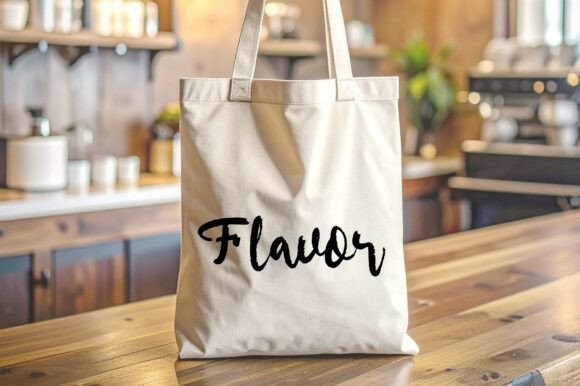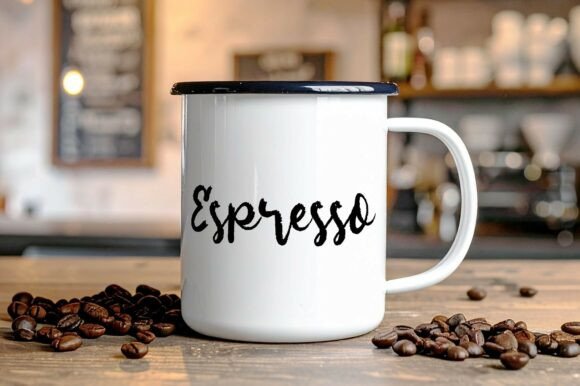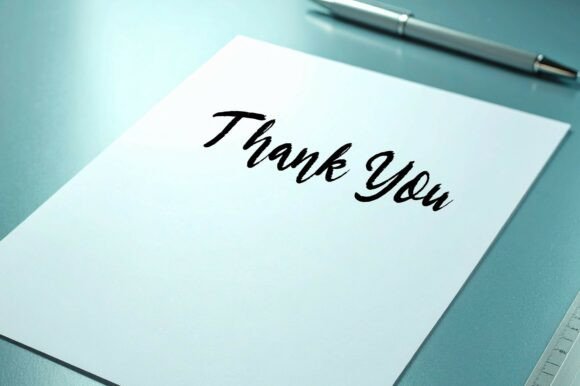
The Perfect Blend of Emotion and Aesthetics
As you sit down to craft a heartfelt message for a loved one, you search for the perfect words to convey your feelings. But sometimes, it’s not just the words that matter – it’s the way you express them. That’s where the magic of typography comes in. Imagine your words dancing across the page in a beautiful, whimsical script, speaking directly to the heart of your recipient.
Enter the “Be With You Font”, a charming script font that embodies warmth and affection. This font is designed to transport your message from the digital realm to a tangible, emotional experience. With its unique blend of modern aesthetics and ageless allure, “Be With You Font” is a valuable tool for designers looking to add depth and authenticity to their work.
Whether you’re creating a brand identity, packaging design, or social media campaign, “Be With You Font” is the perfect companion to help you craft a story that resonates with your audience.
Be with You Font Key Features
- Font Family: Be with You, a beautiful and elegant script font designed to convey a sense of love and romance.
- Unique Characteristics: The Be with You font features a unique, flowing script style with subtle flourishes and connections between letters, giving it a romantic and elegant feel.
- Font Weight: The font comes in multiple weights, including Light, Regular, Bold, and Extra Bold, allowing users to choose the perfect weight for their design needs.
Designer Review: Be with You Font
Overall, I’d say the Be with You Font is a lovely addition to any digital designer’s toolkit. ✨ It’s modern, sleek, and feels very much at home in contemporary designs. The font’s versatility shines through in its ability to adapt to various design styles, making it a solid choice for projects ranging from minimalistic web pages to creative social media graphics.
Some of the things I appreciate about Be with You Font include:
- Its clean lines and simple shapes ✨
- Its legibility, even at smaller font sizes ✨
However, I do have some reservations about Be with You Font:
- Lack of bold weight options ⚠️
- Not ideal for complex, multi-line text layouts ⚠️
Despite these limitations, I think Be with You Font is a great choice for designers who need a clean, modern font for their projects. It’s a solid addition to any design library, and I’d definitely recommend it for designers looking to create simple, yet effective designs.
Tip: Use the Be with You font to add a touch of elegance to your wedding invitation designs.
Tip: Use the Be with You font to create a beautiful title for your logo design.
Tip: Use the Be with You font to add a touch of sophistication to your resume or business card designs.
The Be with You font is ideal for:
- Logo designs and branding materials.
- Business cards and resume designs.
- Formal event invitations and announcements.